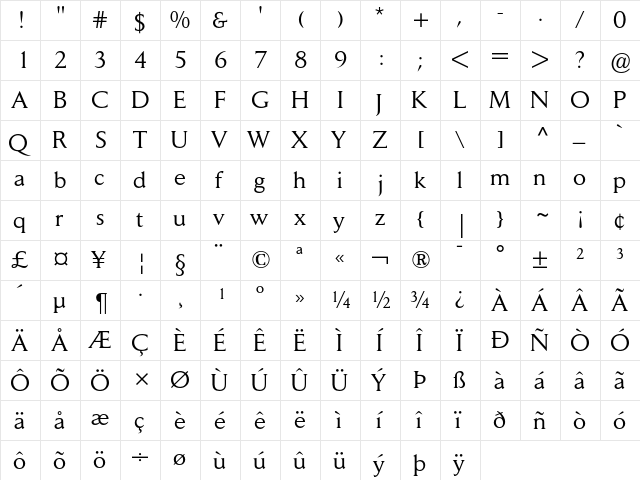
Jaeger Daily News Regular Font Preview
Jaeger Daily News Regular
Design Context for Jaeger Daily News Typeface
Jaeger Daily News takes a measured approach to typography — its balanced proportions and neutral character make it a reliable workhorse for both digital and print work.
Pro Tip: Use Jaeger Daily News in both headline and body roles to test its range before committing to a single application.